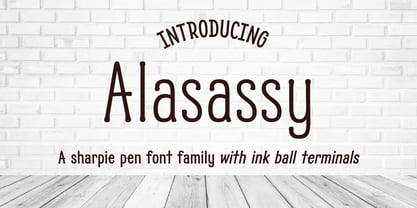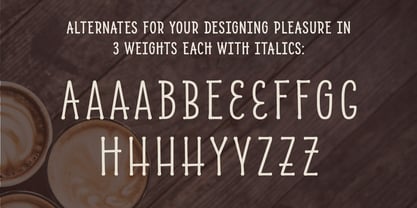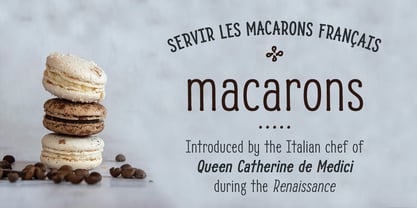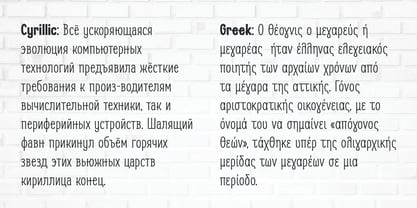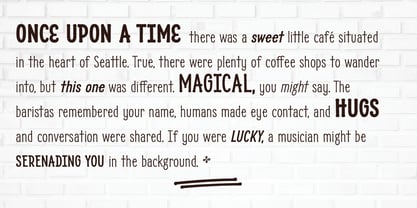
Alasassy
Alasassy is an informal typeface that is designed to liven up logos, headlines, informal signs, advertising, book or report covers, or packaging. It’s narrow and looks hand-written, as though it had been drawn with a felt-tip pen that left little ink balls on the ends of letters. Alasassy includes both lowercase and uppercase letters, with alternate characters that mix high and low crossbars, giving the design versatility and a whimsical feeling. Type designer Andrea Leksen wrote out pages of Sharpie pen drawings to get the look she wanted for Alasassy. She describes it as “a great combination of an organic, hand drawn feel but still clean and crisp enough to look professional.” Alasassy Pro is offered in three weights—Regular, Bold, and Black—with italic complements for each. The Pro version contains more language support, including Cyrillic and Greek. https://www.myfonts.com/collections/alasassy-caps-font-leksen-design
Type designer, graphic designer and educator Andrea Leksen serves clients through her studio, Leksen Design. She invests in the world of typography through font releases, speaking engagements and publications. Ms Leksen's font releases include Applesassy, Mr Gabe, Nordeco, Nordique and Bemis. In-between font releases, she is most likely found gardening, parenting, sailing or tango dancing.